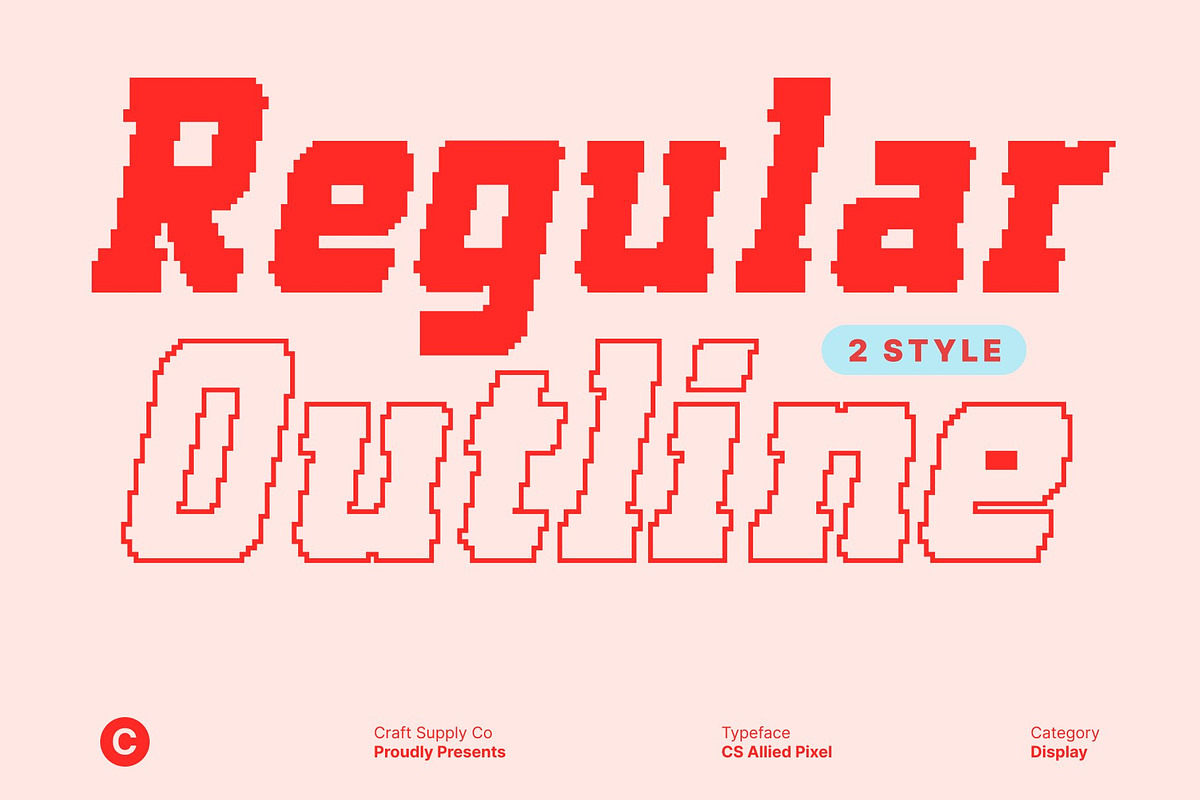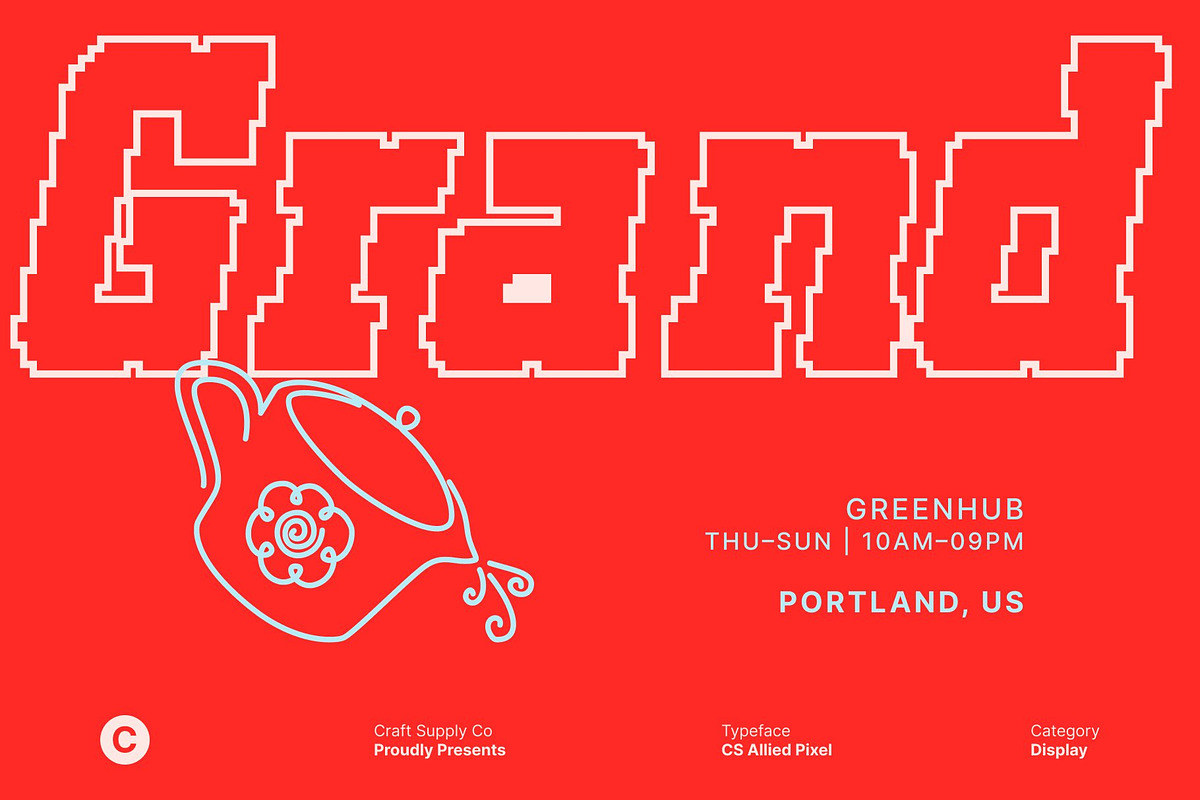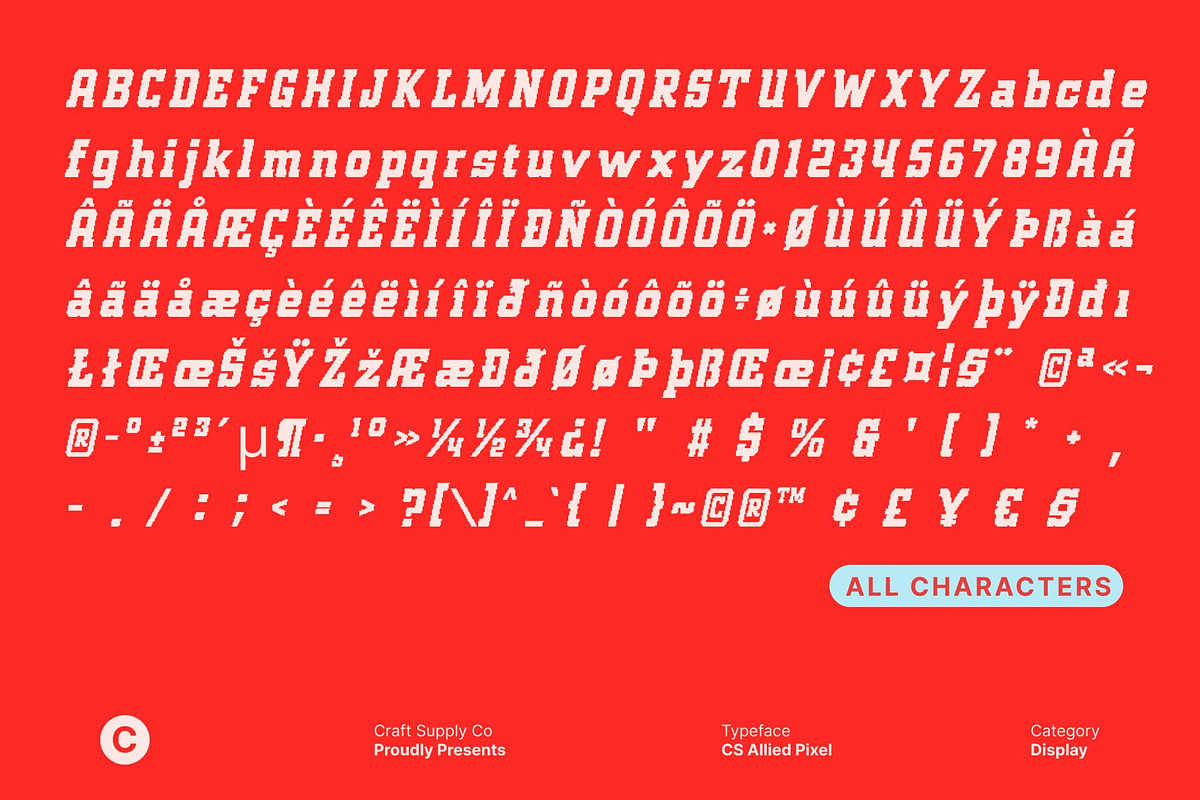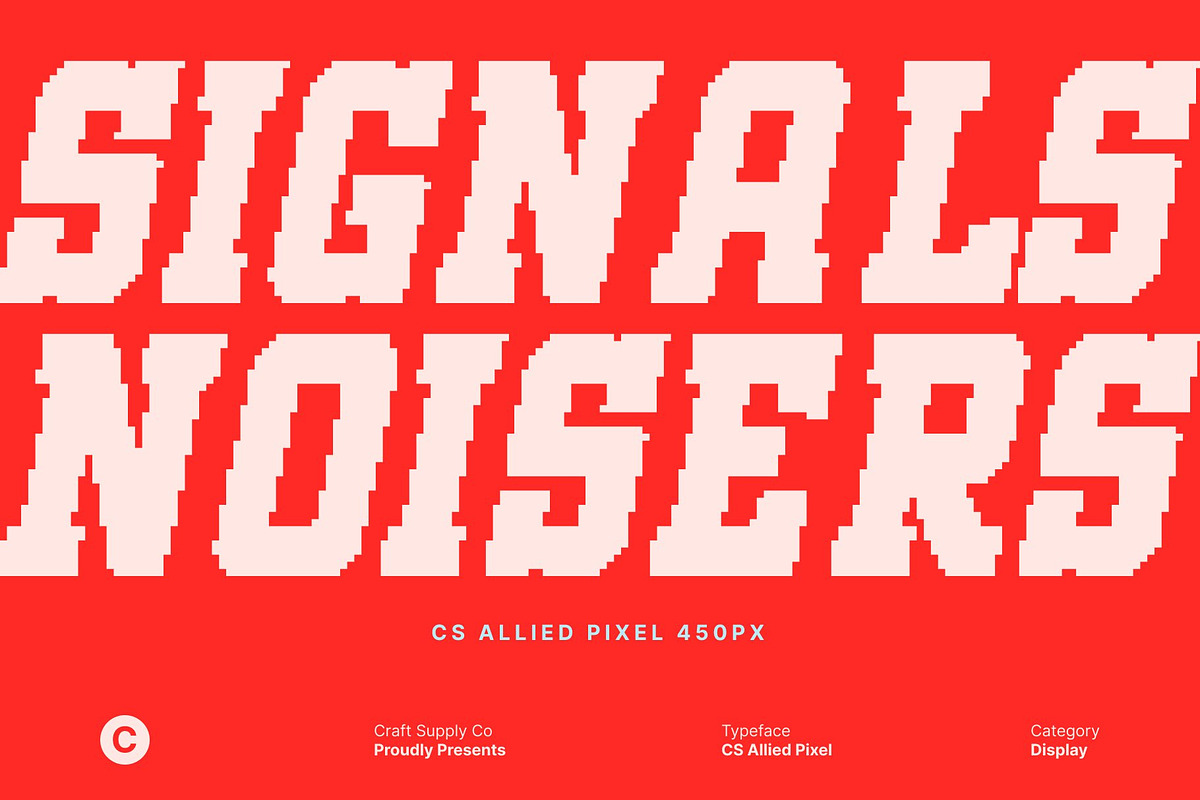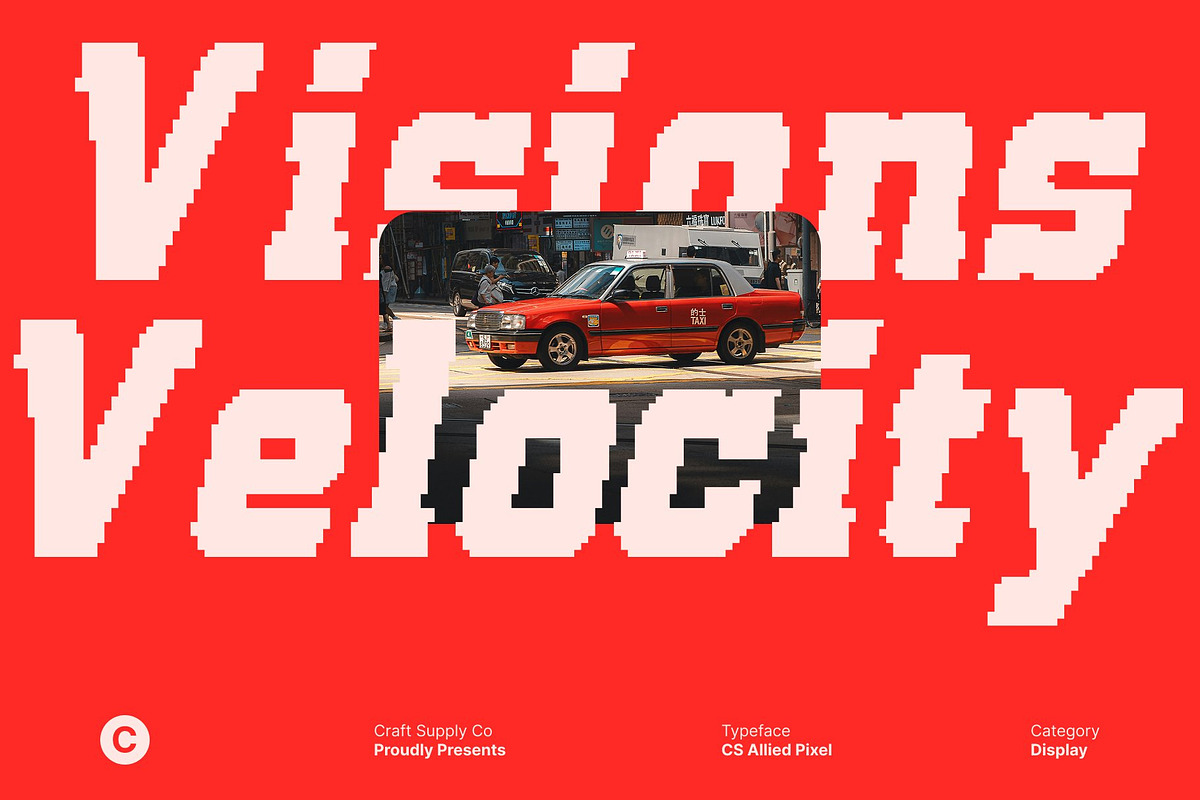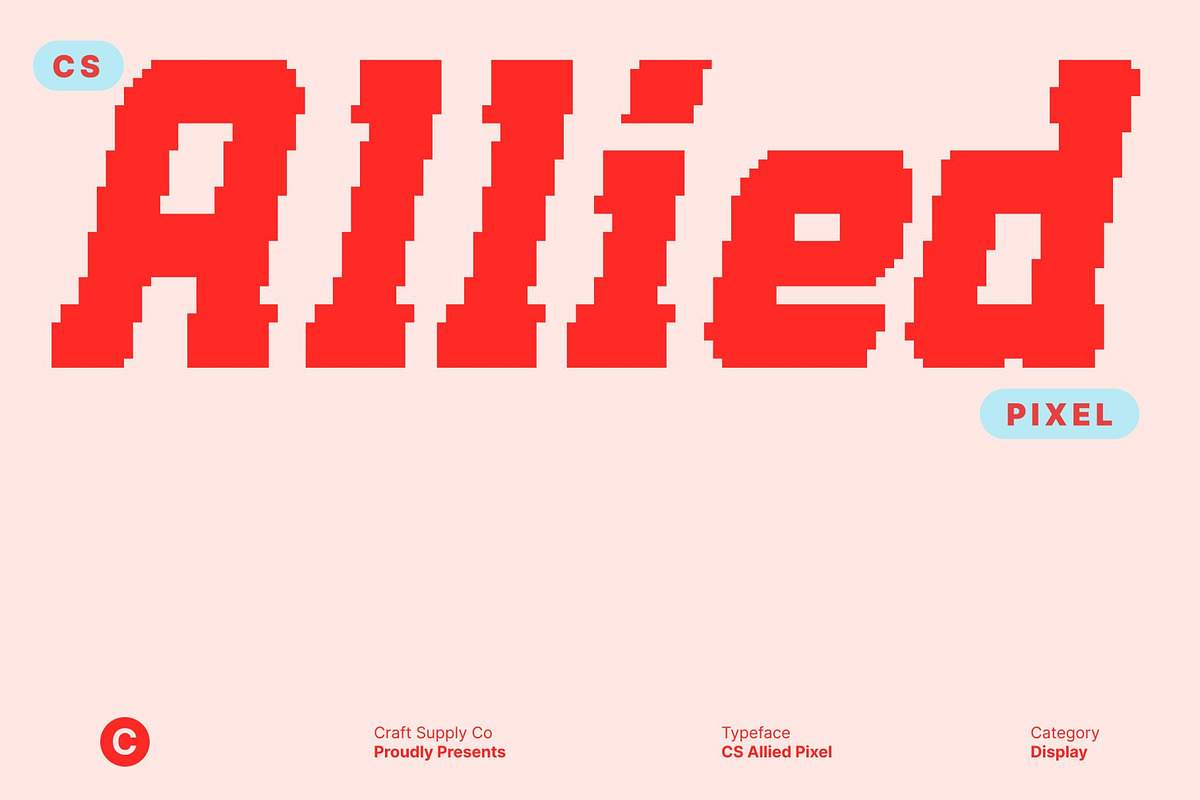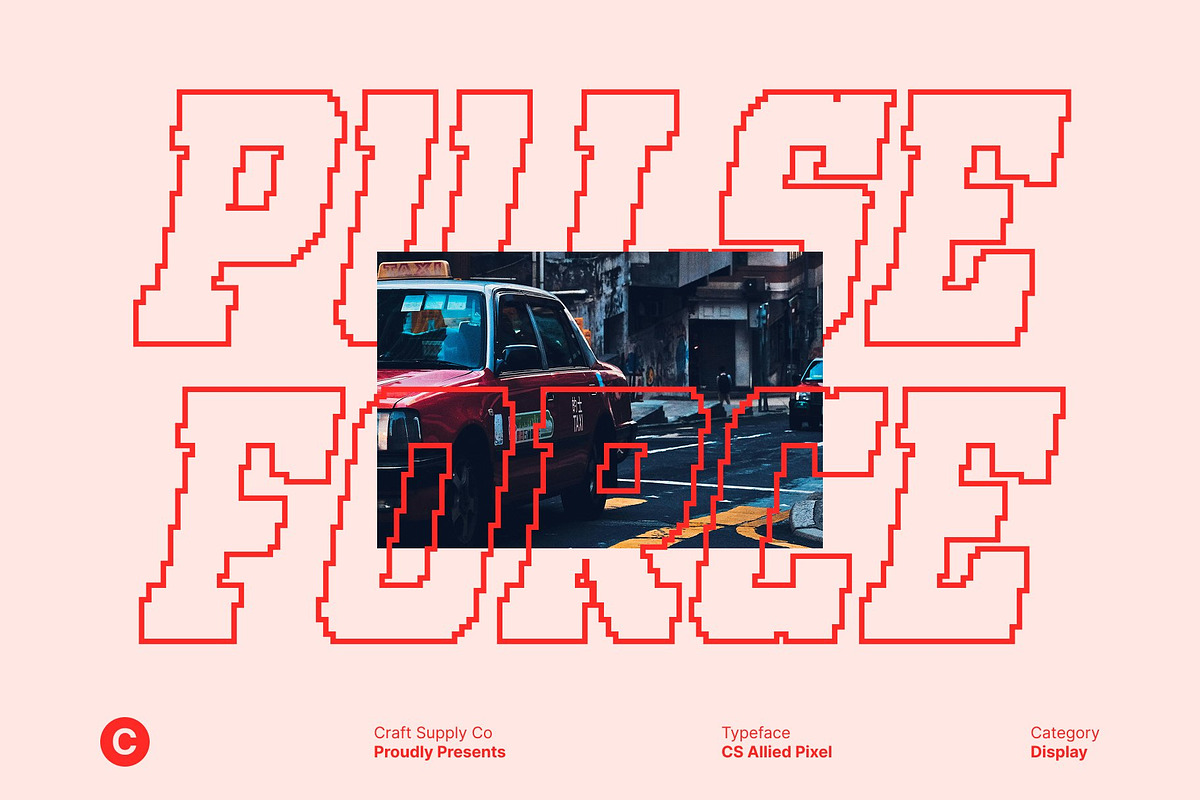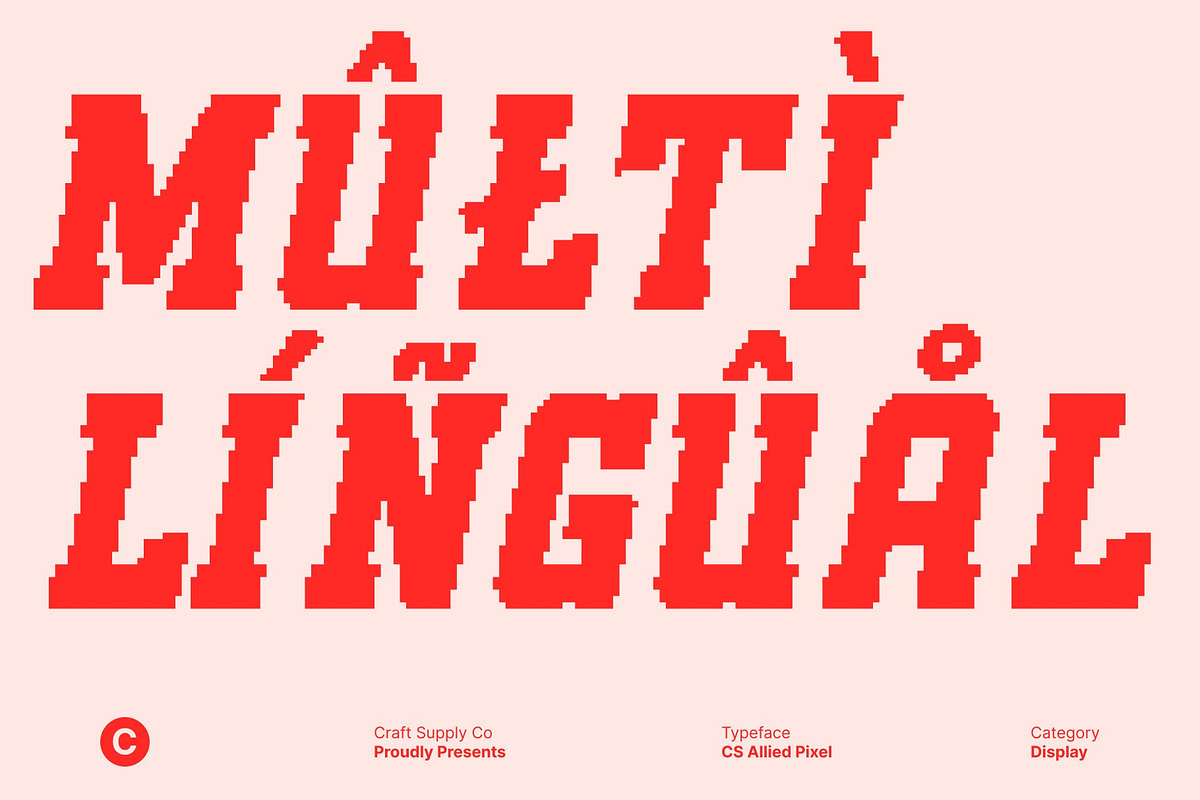
CS Allied Pixel
CS Allied Pixel – Sporty Slab Serif with Bold, Assertive Energy
Strong Slab Serif Design with a Sporty, Confident Tone This is a slab serif font built to deliver power, energy, and assertiveness through a distinctive pixel-based construction. Its strong serifs, bold structure, and blocky pixel forms create an athletic and competitive feel with a digital edge. Every letter stands firm with a modern, commanding attitude while channeling a retro arcade-inspired spirit that instantly grabs attention.
Pixel Construction for Digital and Retro Impact The pixel style gives this font a clearly digital character, evoking classic retro displays while remaining sharp and contemporary. The structured pixel grid enhances visual rhythm and adds a nostalgic, tech-driven charm that makes the typeface eye-catching and memorable across digital and print media.
Optimized for High Visibility and Long-Distance Readability Designed for impactful display use, this font maintains exceptional clarity whether viewed up close or from far away. Its thick strokes, sturdy slab serifs, and pixel-aligned details ensure headlines, posters, billboards, and advertisements remain highly readable at any scale.
Modern, Sturdy, and Perfect for High-Impact Branding Combining modern proportions with durable slab-serif strength and pixel precision, this font offers a bold and contemporary look suited for high-impact branding. It works beautifully for logos and identity systems that demand confidence, competitiveness, and a strong digital presence.
- CS Allied Pixel Regular
- CS Allied Pixel Outline